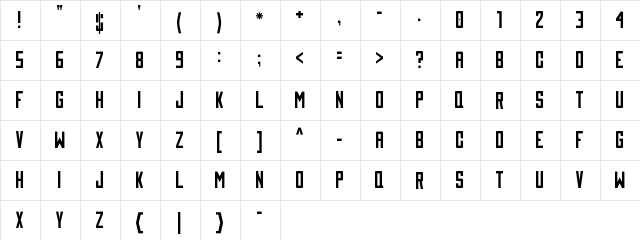
Tigedeblug Regular
| Designer | Wandary |
Design Context for Tigedeblug Typeface
Tigedeblug is a composed and adaptable typeface that performs quietly and consistently across a wide range of design contexts.